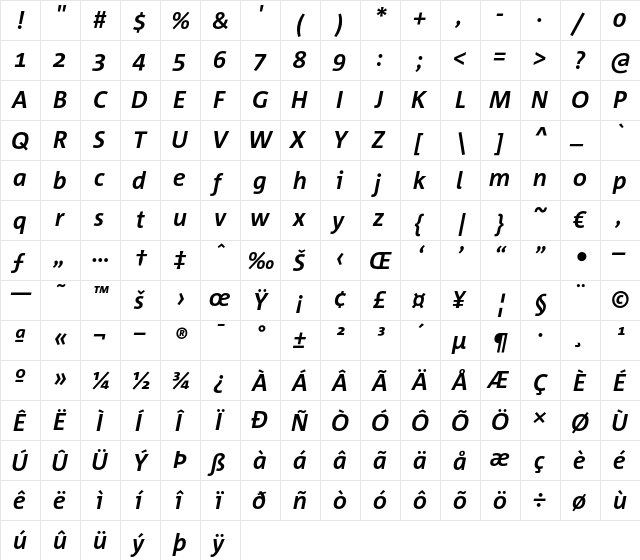
Corpid Bold Italic Font Preview
Design Context for Corpid Typeface
Corpid takes a measured approach to typography — its balanced proportions and neutral character make it a reliable workhorse for both digital and print work. Its italic angle brings a sense of urgency and motion to the letterforms. Its bold stroke weight gives it real presence on the page.
Pro Tip: Try Corpid for annotation and caption copy alongside an upright companion — the contrast in angle creates a dynamic but ordered typographic system.